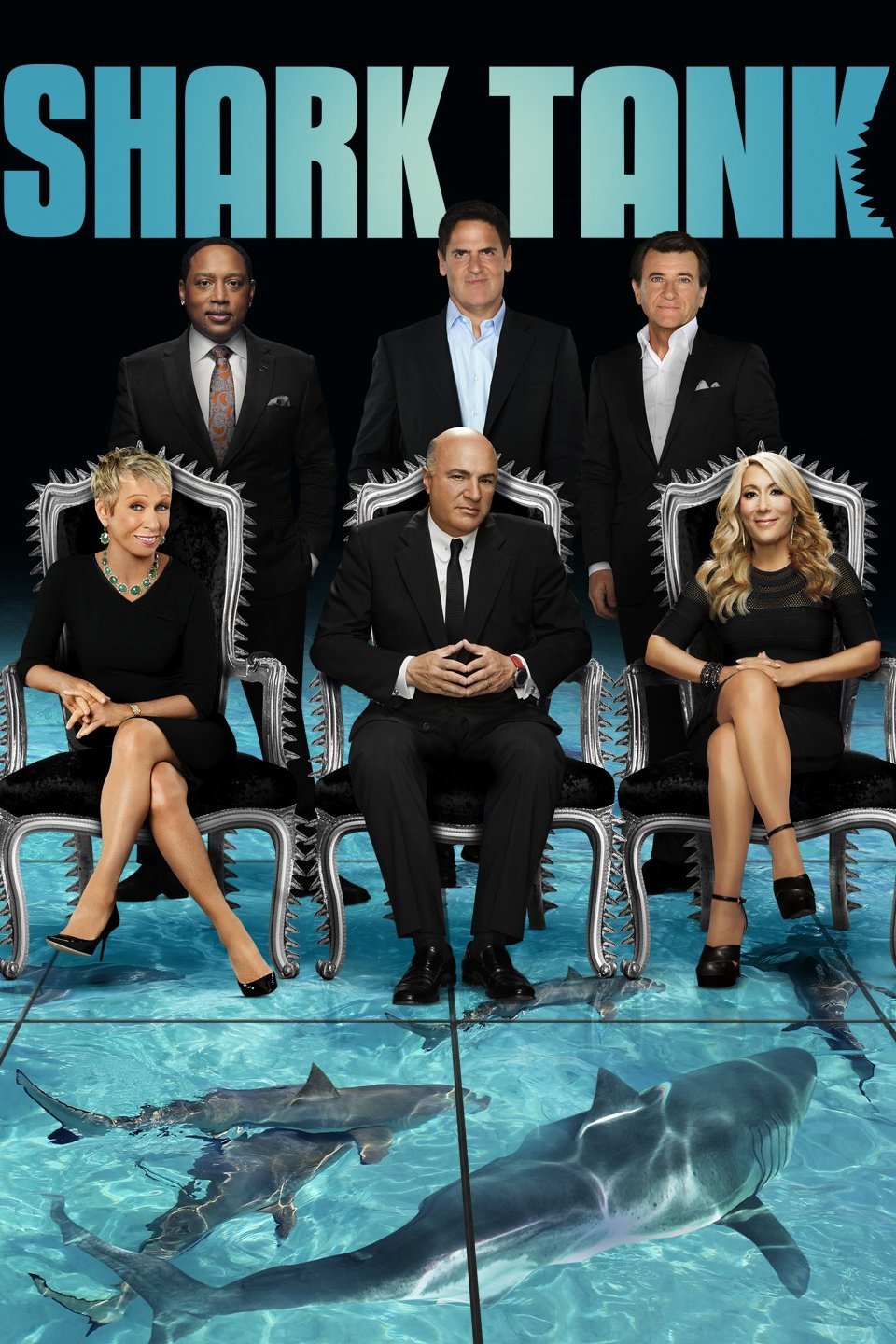
Shark Tank Font
Fonts in UseShark Tank is an American television show on ABC where entrepreneurs pitch their business ideas to a panel of potential investors (sharks). It first aired in 2009.
The title font on the TV show poster is Ray Larabie's Kenyan Coffee Bold, a narrow display typeface with 7 weights and italics, inspired by 1960s compact headliners. Several weights, including Regular, Italic, Bold, and Bold-Italic, are available for free download, or you can view the full font family here.